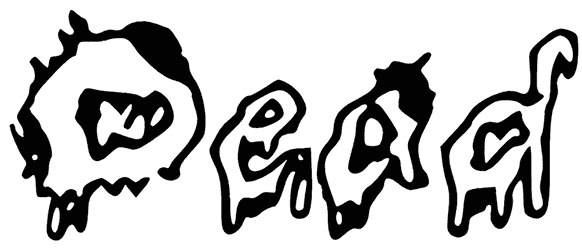
DK Breakfast Burrito Font
If you have been looking for a specific style of script fonts for a long time, then you will need DK Breakfast Burrito. This handwritten font has lines that, when placed together, create a special texture that will make it unnecessary to combine with other fonts. As a result, it can look very good on book covers, advertisements, headlines, and movie posters without lowercase letters.